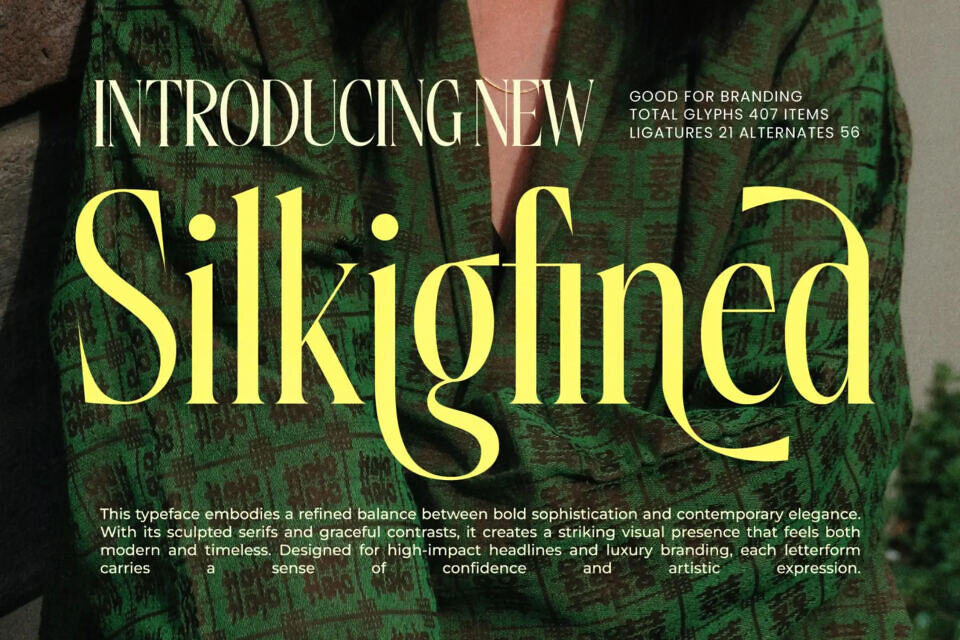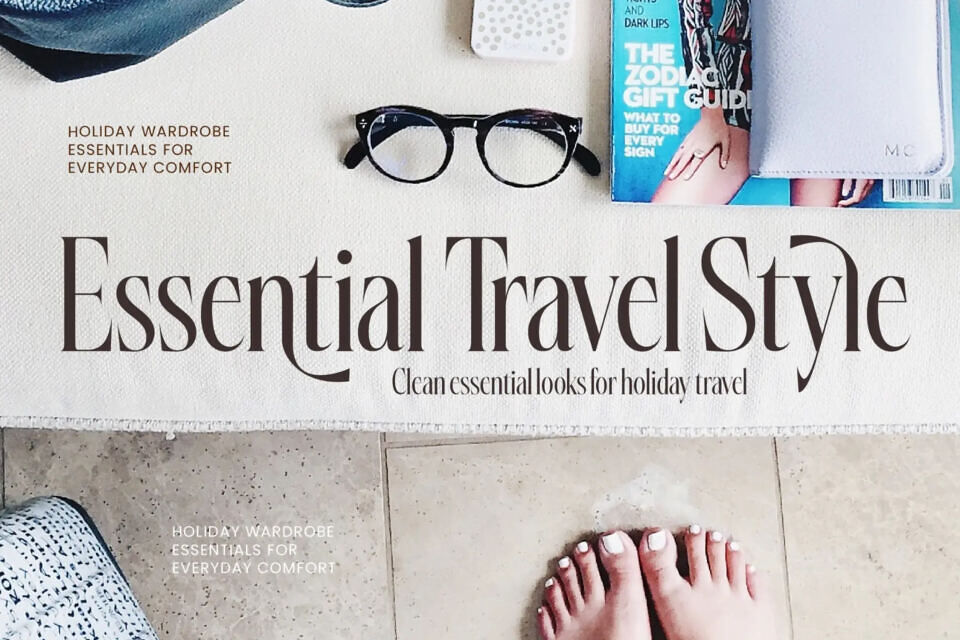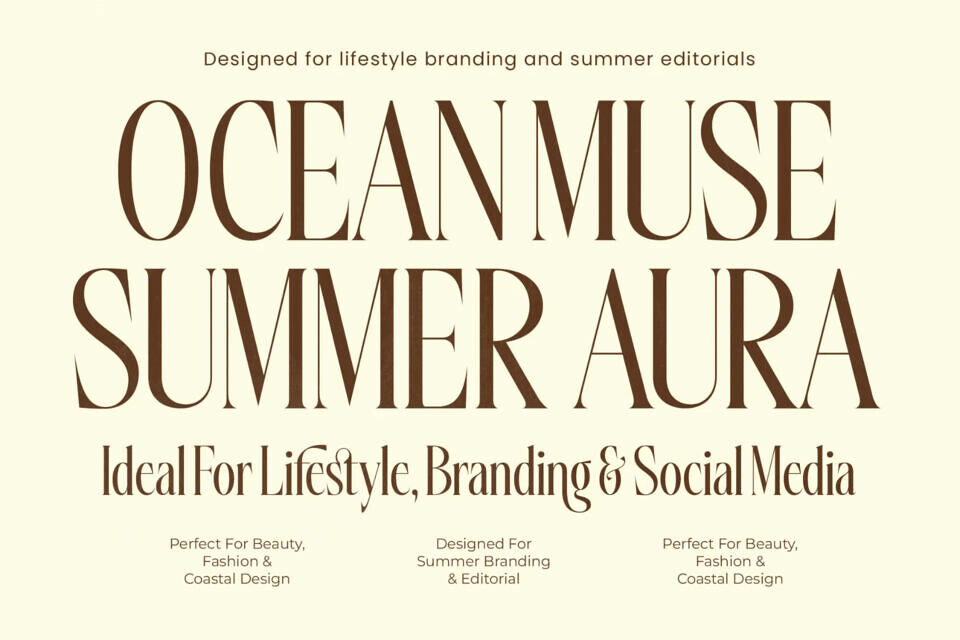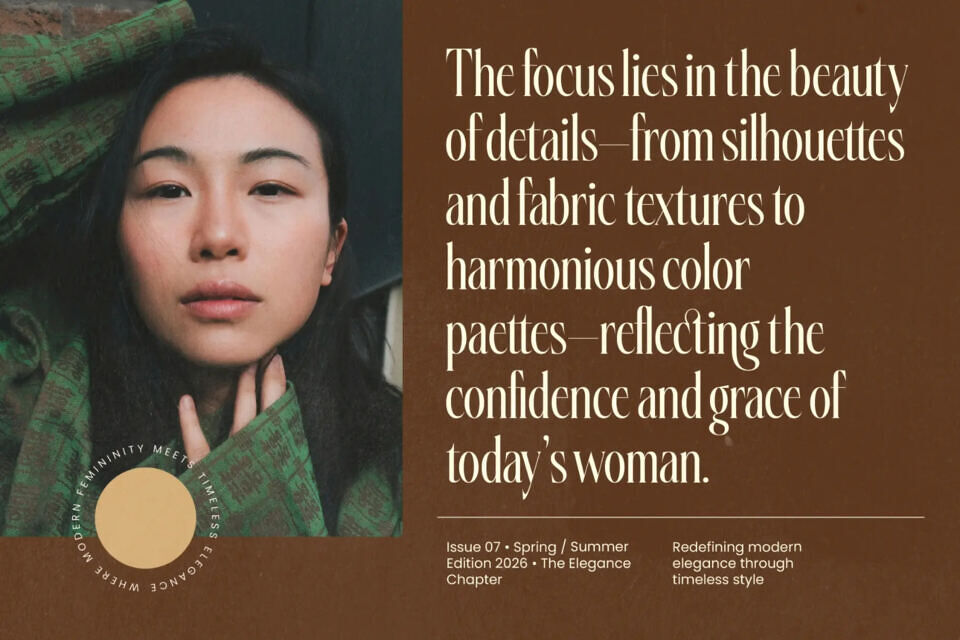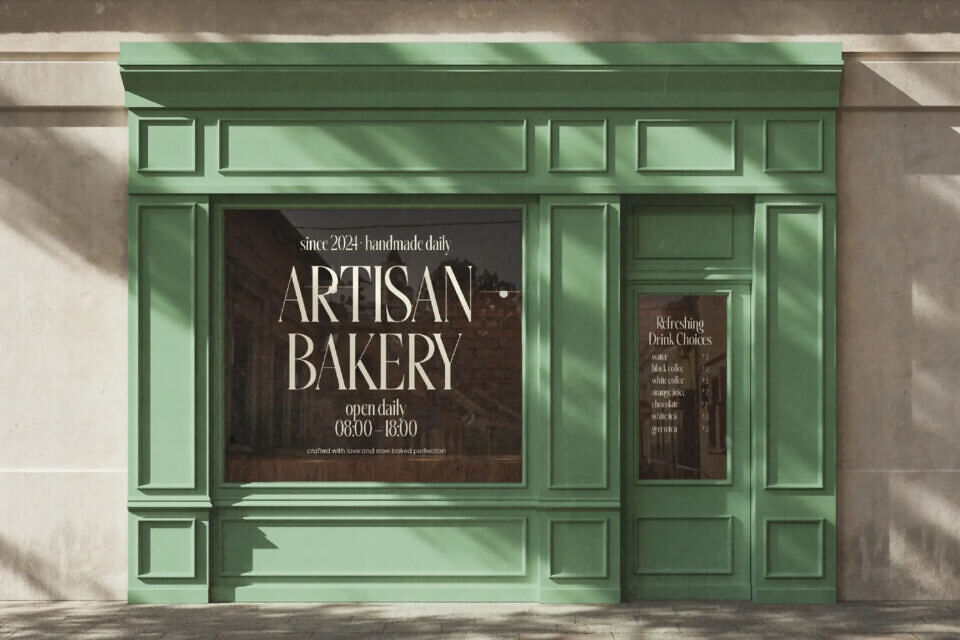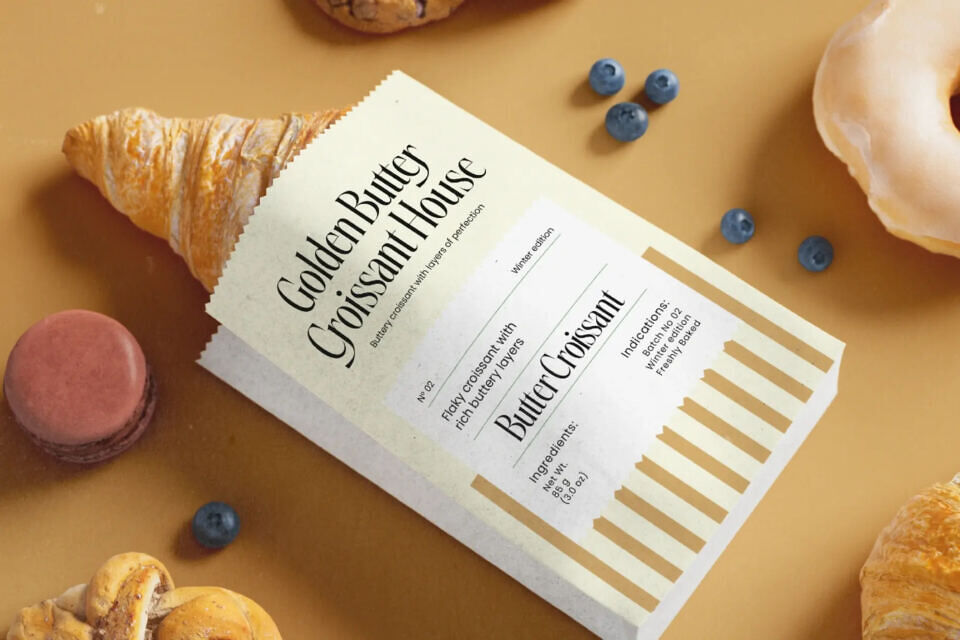
Silkigfined Font
This luxurious serif typeface combines sophistication with modern elegance, creating a timeless visual impact. Each letter is carefully designed to convey artistic expression, making it perfect for designers who want to exude confidence and luxury.
Featuring sculpted serifs and dramatic high-contrast strokes, Silkigfined Font offers a rich set of 21 ligatures and 56 alternates, allowing for total creative control over your typography. The font is ideally suited for luxury branding, premium packaging, high-end editorial design, fashion magazine headlines, jewelry advertisements, cosmetic product labels, and sophisticated logo creation.